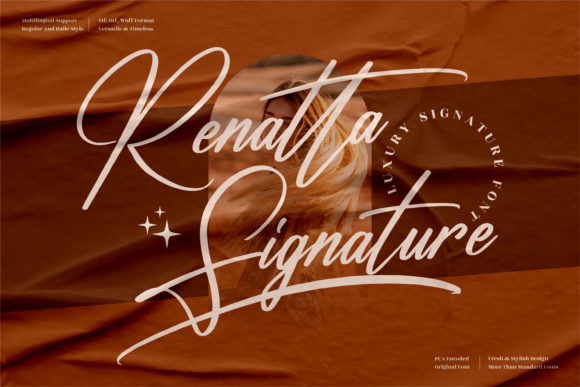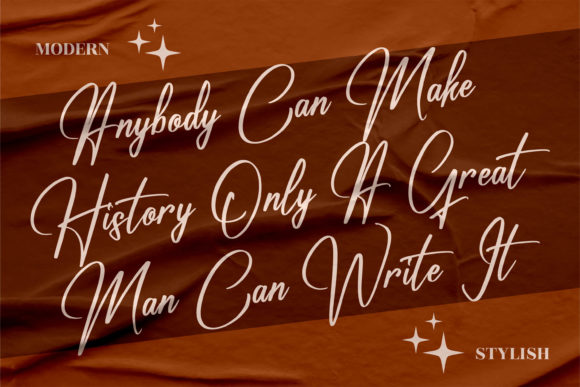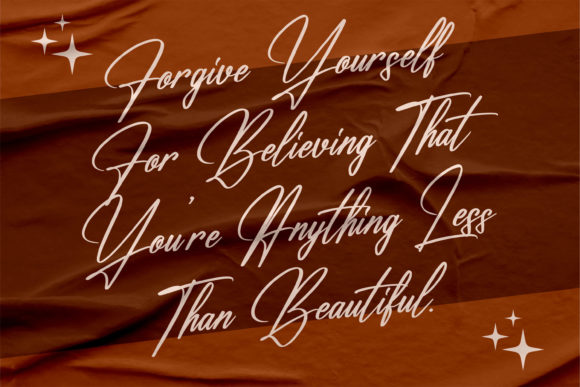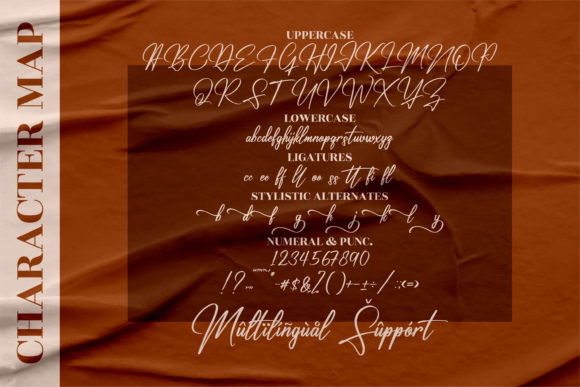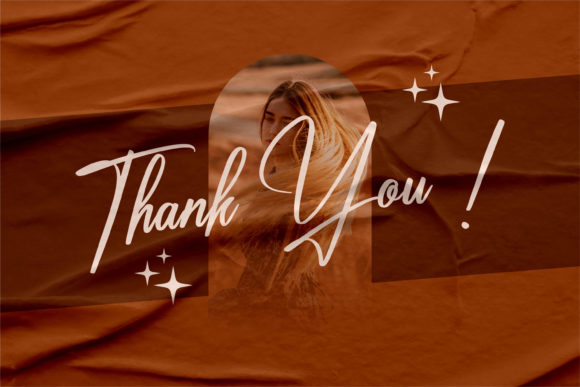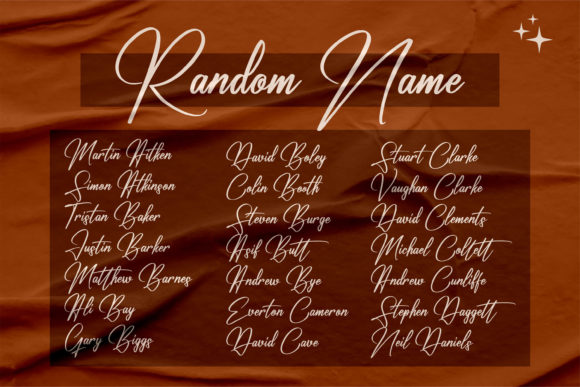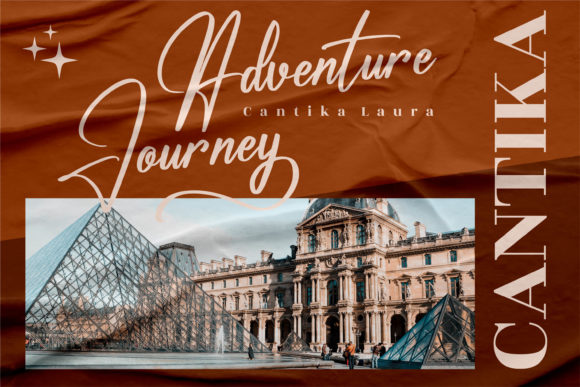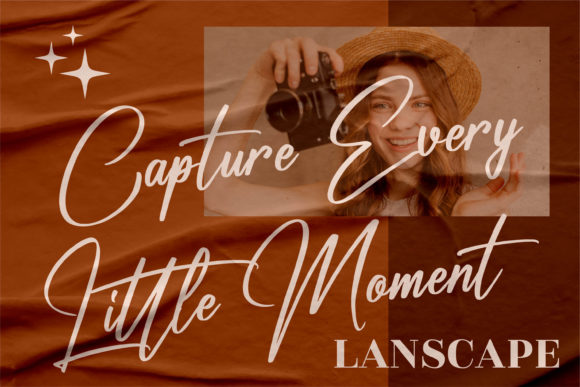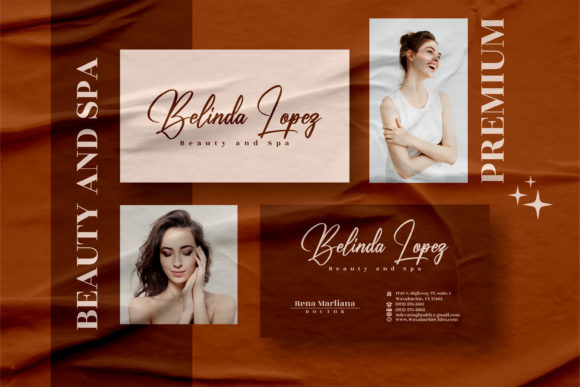
Renatta Signature Font
About Renatta Signature Font
Renatta Signature is a fashionable and flowing script font. It has a classy, elegant and modern look that can be used for logos, branding, invitations, stationery, wedding designs, social media posts, and much more!